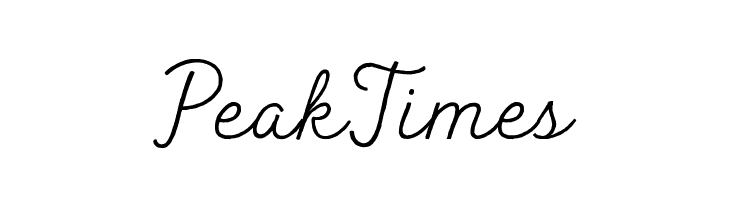
人気フォント セクションへようこそ。ここでは「よくダウンロードされ、よく使われている」実績ある書体をまとめています。 ロゴ、Web、SNS のどれにも使いやすい、外さない選択肢が見つかります。
どの トップフォント も、バランス・可読性・汎用性で高評価です。 モダン・サンセリフ、エレガントなスクリプト、ヴィンテージなセリフ、ミニマルなディスプレイなどを厳選しています。
A refined serif font with a condensed, medium weight and italic style.
A bold, futuristic font with a distinctive striped pattern and geometric shapes.
A classic serif font with high contrast and elegant serifs.
Ornamental geometric borders with pointed, Islamic-inspired edges.
A bold, graffiti-inspired font with dynamic curves and expressive characters.
A modern, light, italic sans-serif font with elegant slant and clean design.
A futuristic, digital font with a gradient line pattern and geometric design.
A playful, handwritten font with smooth, rounded edges and a casual style.
A bold, decorative font with a 3D shadow effect and geometric structure.
A whimsical, heart-themed decorative font with stick figure elements.
A bold, distressed font with a textured, vintage stamp-like appearance.
A playful, handwritten italic font with a lively and dynamic style.
A dynamic and expressive handwritten font with fluid strokes.
A bold, futuristic 3D font with geometric shapes and sharp angles.
A playful font with characters embedded in teddy bear designs, ideal for children's projects.
A modern, elegant script font with flowing, handwritten characteristics.
A playful and elegant script font with a handwritten style.
A bold, condensed font with a distressed, vintage texture.
A playful, rounded font with smooth curves and a friendly appearance.
A playful, bold, and italicized font with rounded edges and a lively feel.
A modern, slightly condensed font with geometric and humanist elements.
A decorative font with characters designed as butterfly silhouettes.
A bold, playful font with rounded edges and a modern, energetic style.
A bold, cursive font with a flowing, handwritten style.
A playful, bold handwritten font with dynamic strokes and a modern feel.
A playful, cartoonish decorative font made of illustrated faces and characters.
A dynamic graffiti-style font with bold, sweeping strokes and an urban flair.
A bold, italicized font with high contrast and a modern, dynamic style.
( Fonts by Toto - Personal-use only. For commercial use please contact owner. )
A bold, decorative font with a playful, shadowed style.
( Fonts by Kong Font )
A bold, playful handwritten font with thick strokes and a casual style.
A decorative collection of tulip-themed icons and symbols.
( Fonts by GorillaBlu - Personal-use only. For commercial use please contact owner. )
A playful serif font with integrated car graphics on each letter.
A bold, electrified font with jagged edges and high contrast.
今のトップフォントは?
は、クリーンな造形と広い適用範囲で支持を集めています。 ブランディングからランディングページ、ポスターまで活躍します。
ロゴで人気のフォントは?
幾何学系の サンセリフ(例: Poppins、Gotham 系のファミリー)は、スケーラブルでクリーンな印象に最適。 親しみやすさを出すなら スクリプト や手書き系も定番です。 見出しは力強く、本文はニュートラルに──この組み合わせが認知とバランスを高めます。